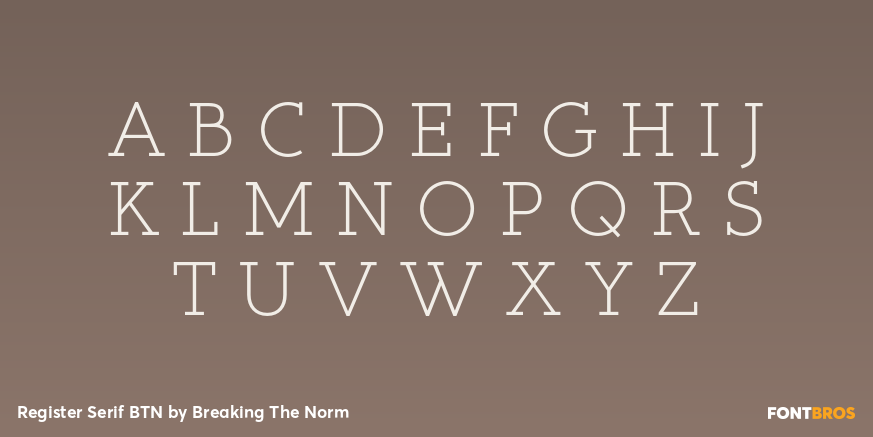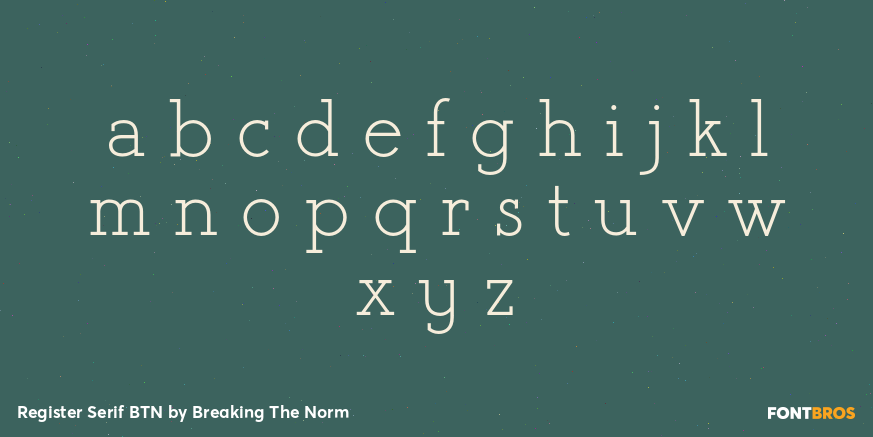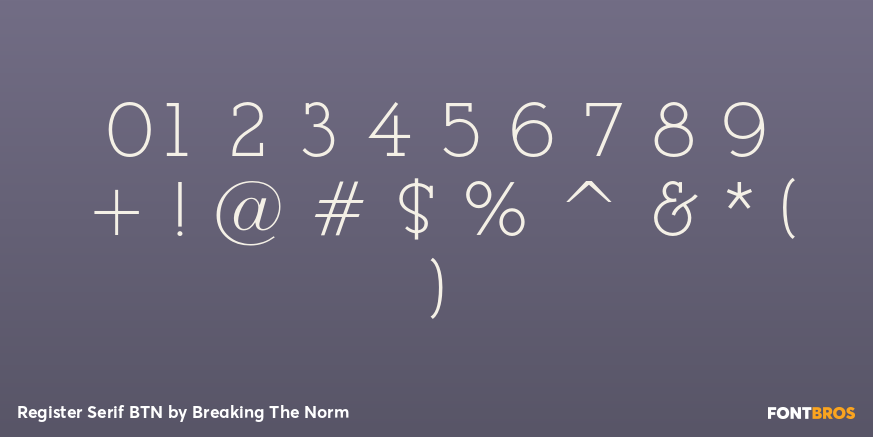
Register Serif BTN
Font Family by Breaking The Norm
Register Serif BTN is a friendly, highly readable serif family inspired by the clean hand-lettering models found in vintage Speedball lettering manuals. Its structure blends straightforward drafting influence with a softer, more approachable tone, giving it a distinctive balance of clarity and character. The family works well for editorial design, branding, packaging, signage, advertising, educational materials, and display settings that benefit from a serif voice with warmth and control. With a range of core weights, obliques, and Short Caps companions, Register Serif BTN offers flexible options that can shift from casual and friendly to more polished and authoritative.